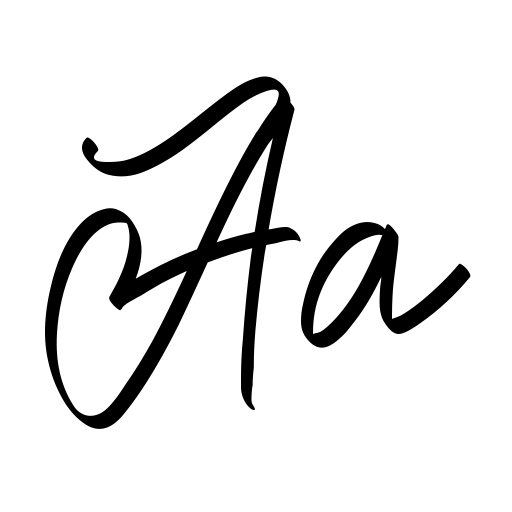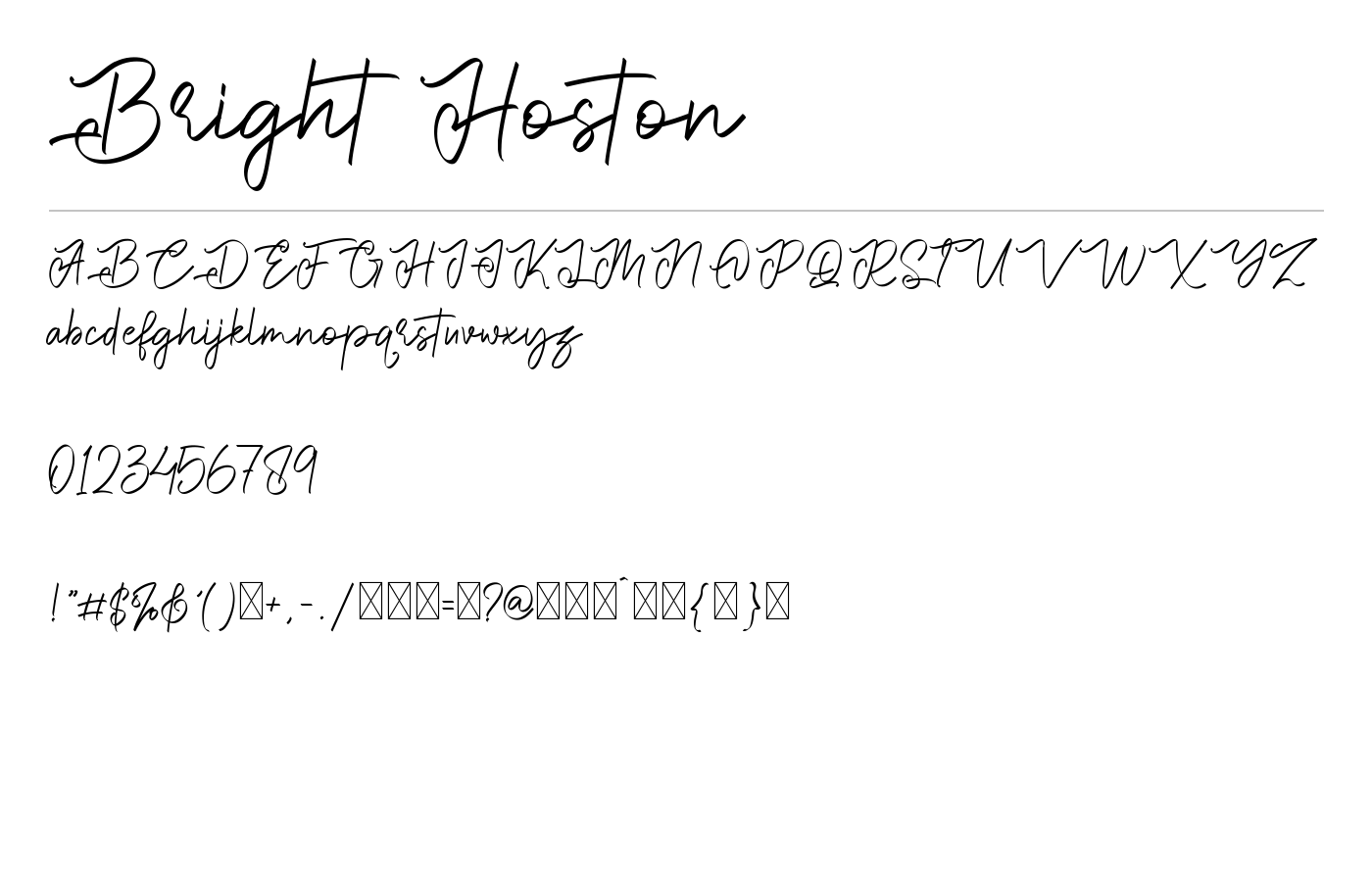
Bright Hoston is a delicate script font that features elegant, flowing strokes with a handwritten feel. Its thin, slightly irregular lines and charming loops give it a personal, artistic touch perfect for creative and feminine designs. This font works beautifully for invitations, branding, and any project seeking a sophisticated yet approachable style.
Bright Hoston Font
About Bright Hoston Font
| Font family | Bright Hoston Font |